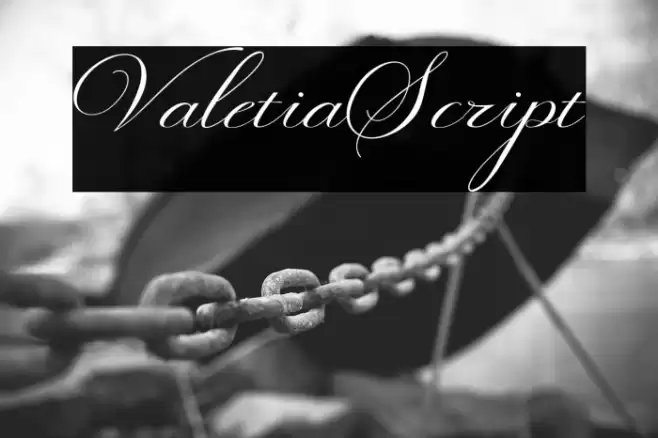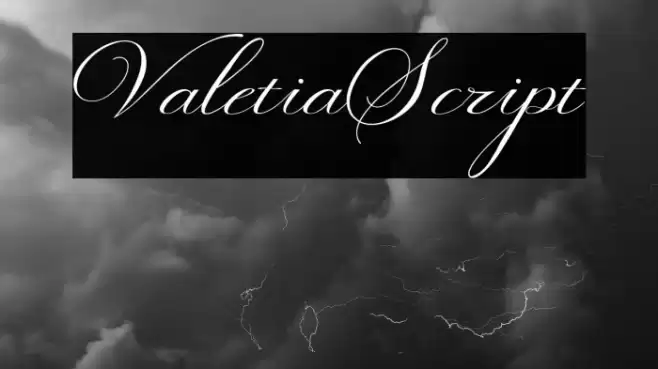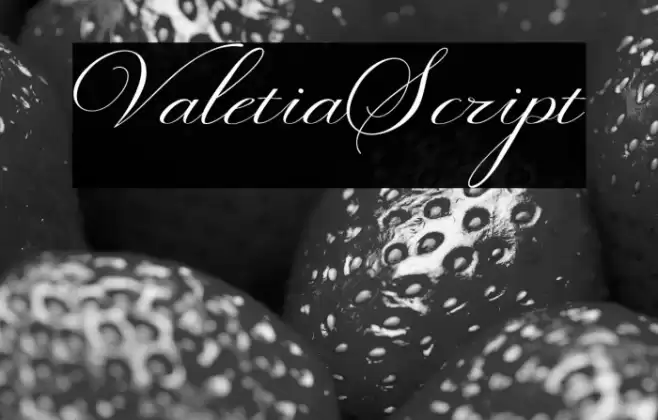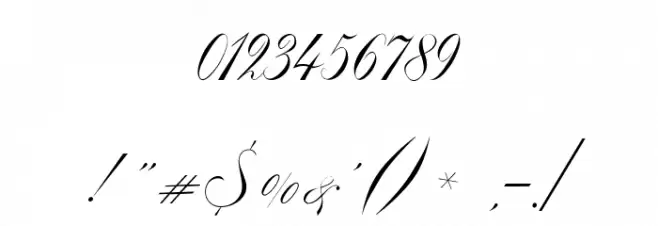
ValetiaScript Font
ValetiaScript Description
This elegant script font features flowing, interconnected letters that exude a sense of sophistication and grace. The uppercase characters are ornate, with elaborate swirls and flourishes that add a touch of luxury. The lowercase letters maintain a consistent flow, enhancing readability while retaining their decorative appeal. The numerals are styled to match the overall aesthetic, ensuring a cohesive look across all text elements. Special characters are thoughtfully designed, complementing the font's refined style. This font is perfect for projects that require a touch of elegance and class.
An elegant script font with flowing, interconnected letters and ornate flourishes from Regular fonts.
- Proposed Projects: Ideal for wedding invitations, luxury branding, elegant signage, and high-end product packaging.
- Overall Style: Elegant
- Use Case: Logos, Invitations, Branding